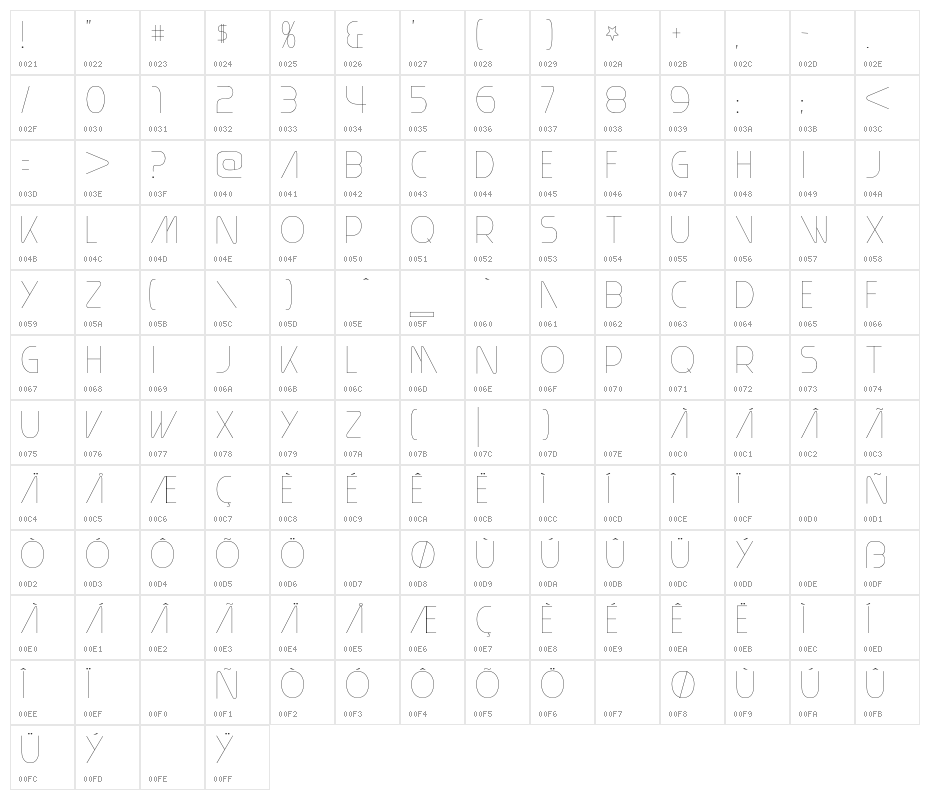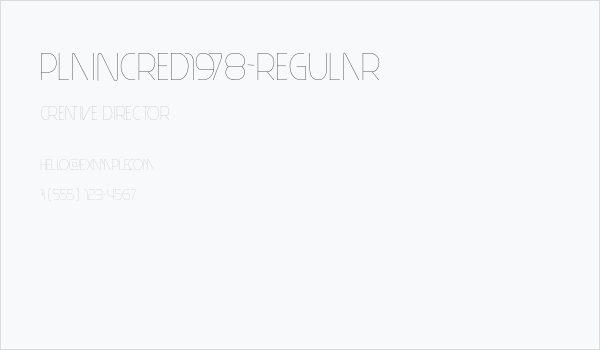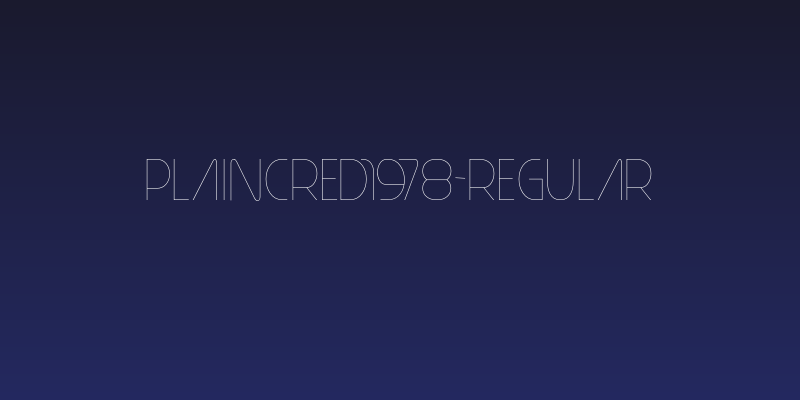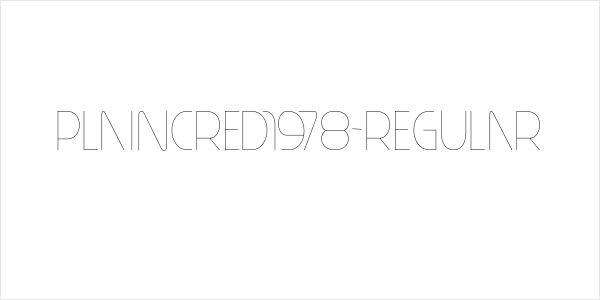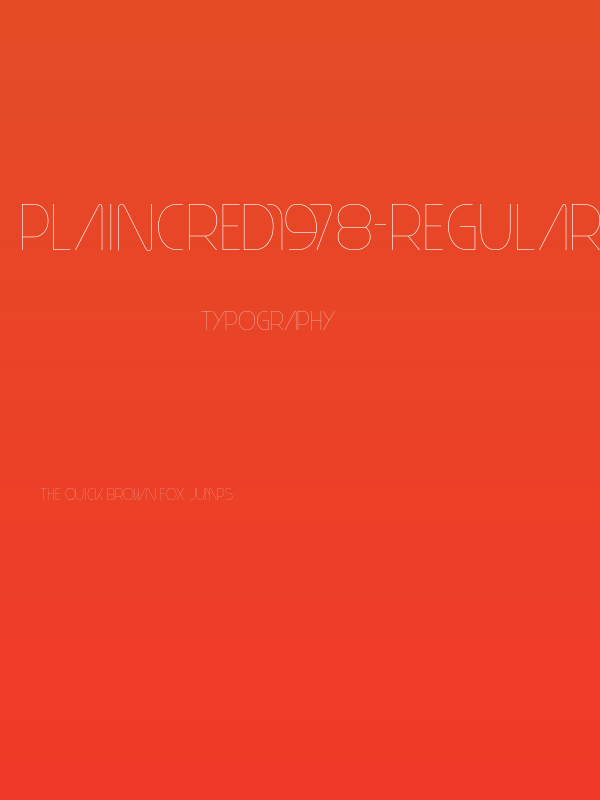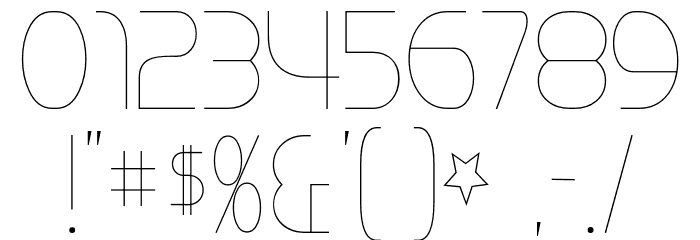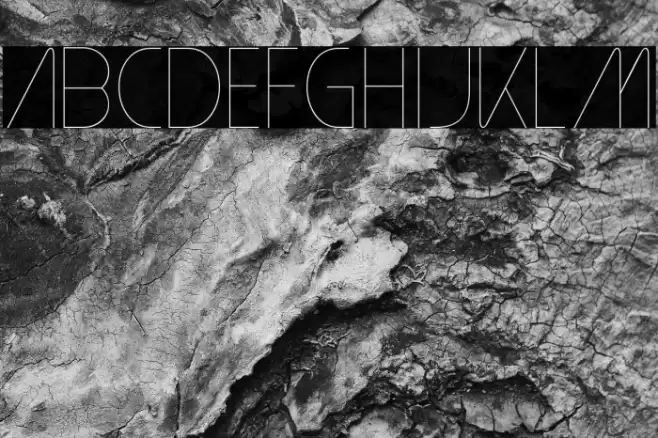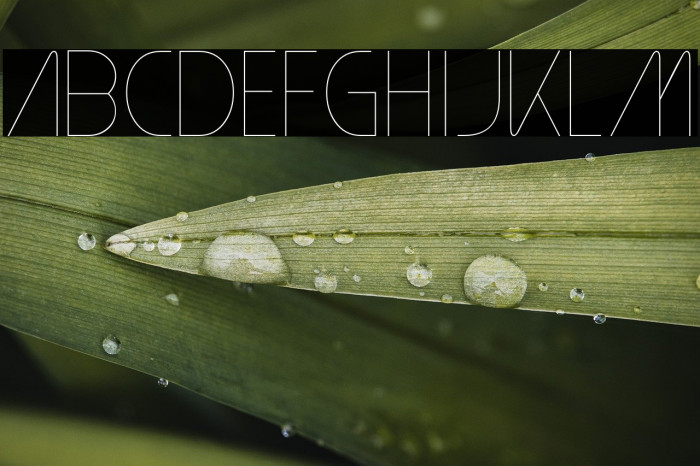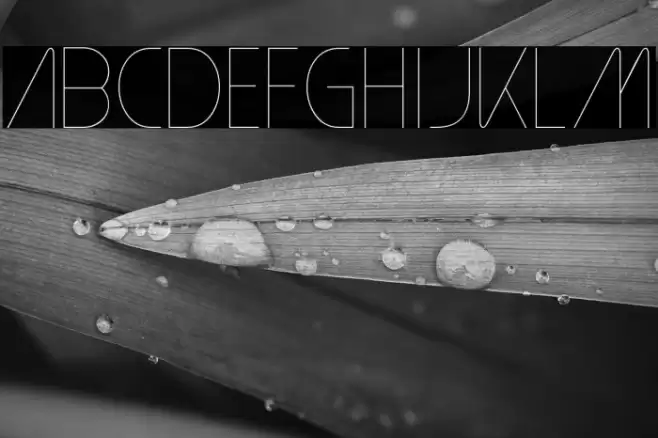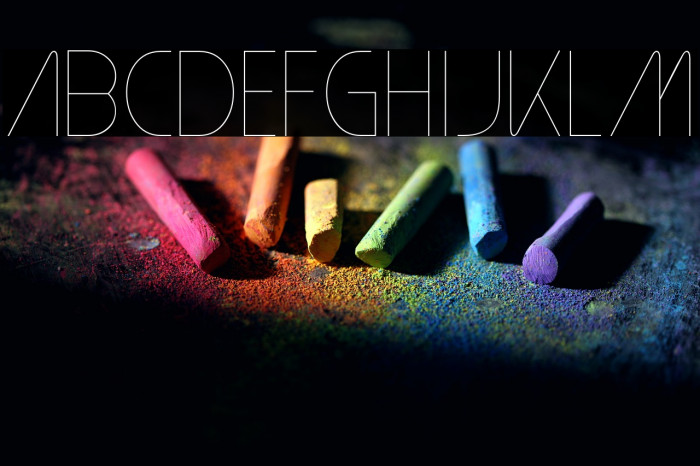
PlainCred1978-Regular Font
PlainCred1978-Regular Description
This font features a sleek, modern design with thin, uniform lines and a geometric structure. The characters are elongated and have a futuristic appeal, with a minimalist aesthetic that emphasizes clarity and simplicity. The uppercase and lowercase letters maintain a consistent style, with rounded edges and a slight angularity that adds a touch of elegance. The numerals and special characters are designed to complement the alphabet, maintaining the same thin line weight and geometric form. This font is ideal for projects that require a clean and contemporary look.